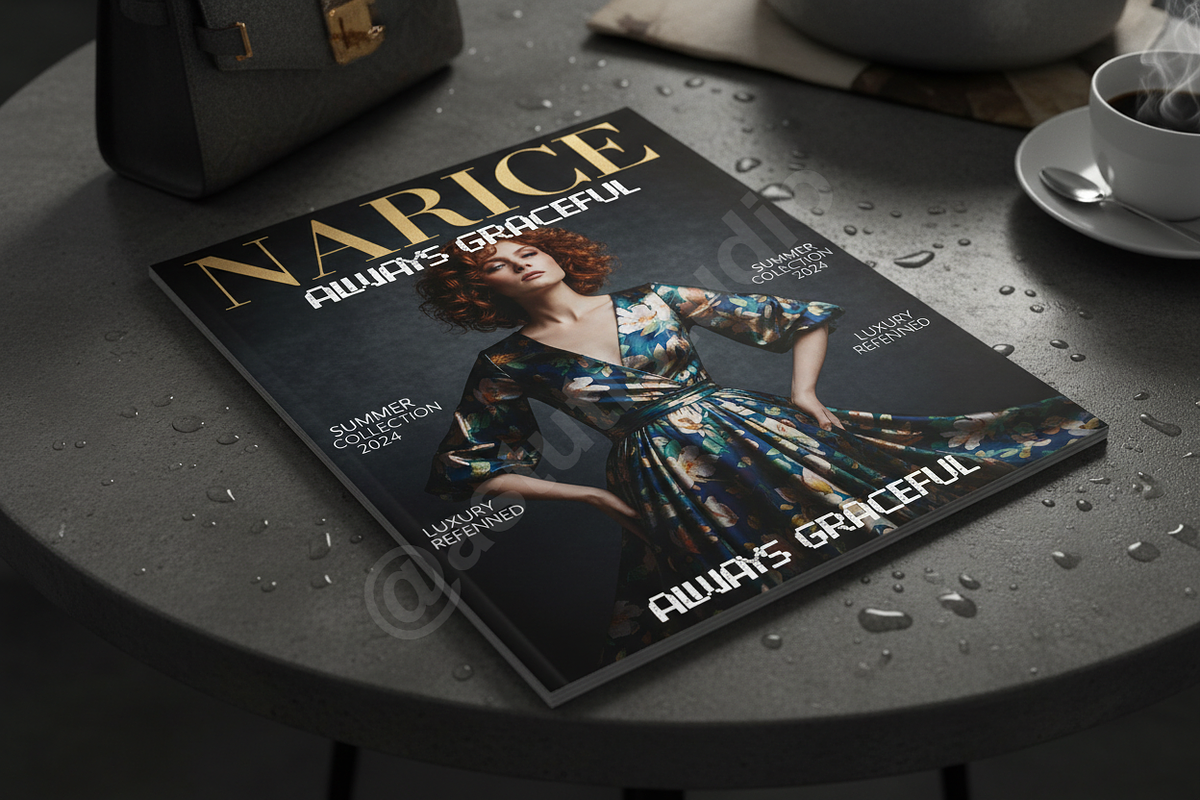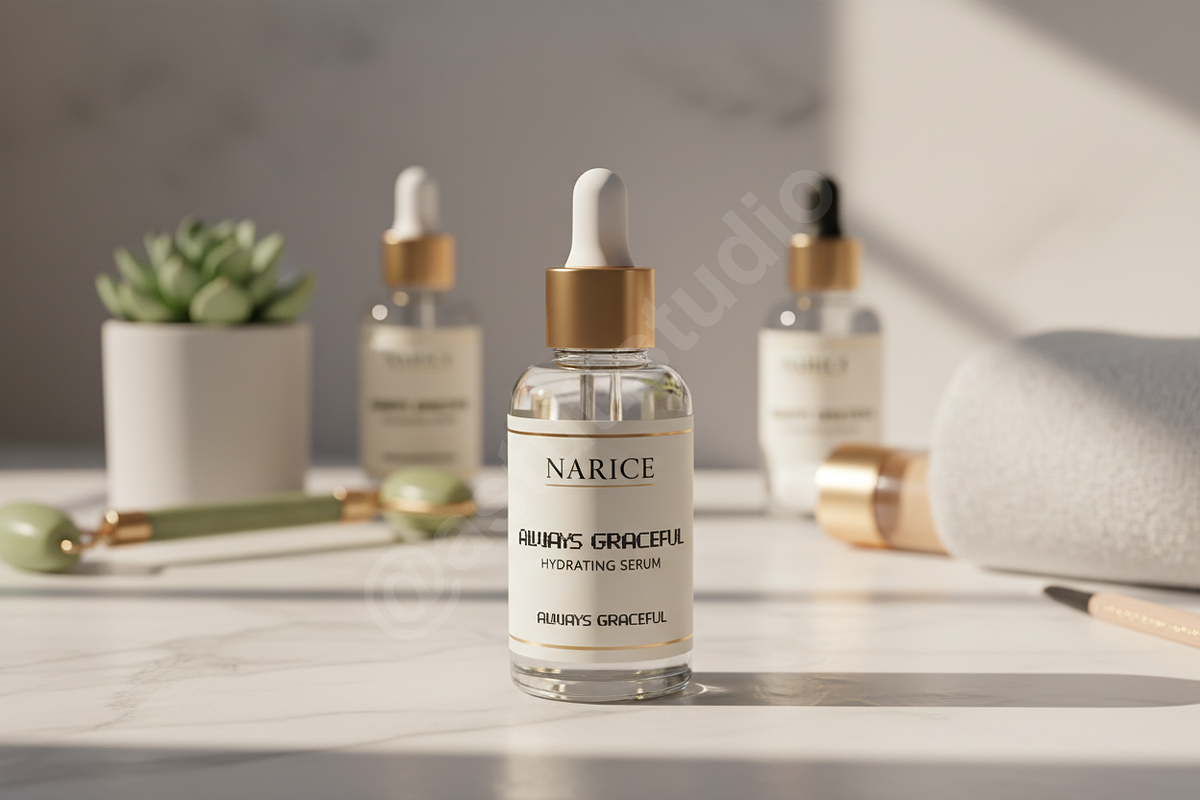
Narice | Refined Modern Serif Typefa
INTRODUCTION Narice is a sophisticated serif font meticulously crafted for high-end aesthetics. With its elegant proportions and refined details, it embodies the essence of modern luxury, making it an essential tool for premium branding and editorial layouts.
DESIGN PHILOSOPHY Created by a boutique studio for discerning designers, Narice balances classic serif foundations with contemporary sharp edges. It is perfect for projects requiring a touch of exclusivity and timeless grace.
PERFECT FOR
- Luxury Branding and Visual Identity
- High-end Editorial and Magazine Layouts
- Elegant Social Media Content and Quotes
- Sophisticated Stationery and Wedding Invitations
- Modern Web Design and User Interfaces
- Upper and Lowercase characters
- Unique decorative ligatures for custom looks
- Clean, high-contrast strokes for optimal legibility
- Comprehensive multilingual support
- Standard punctuation and numerals